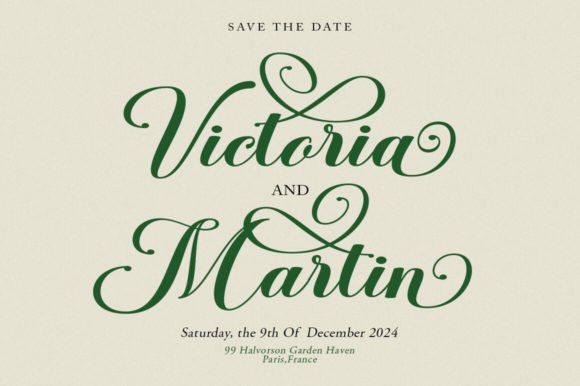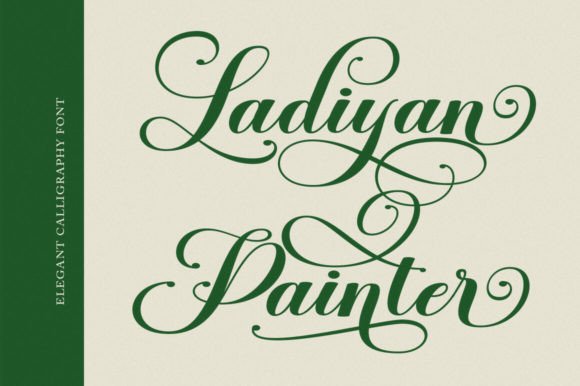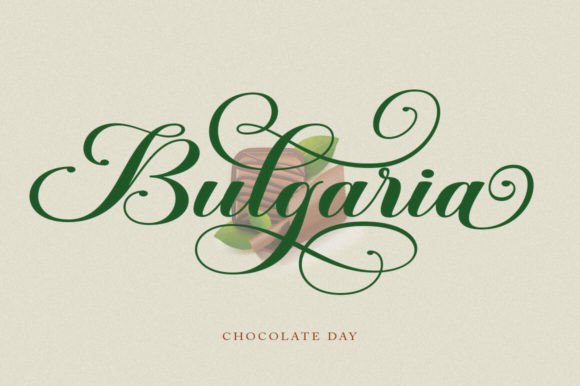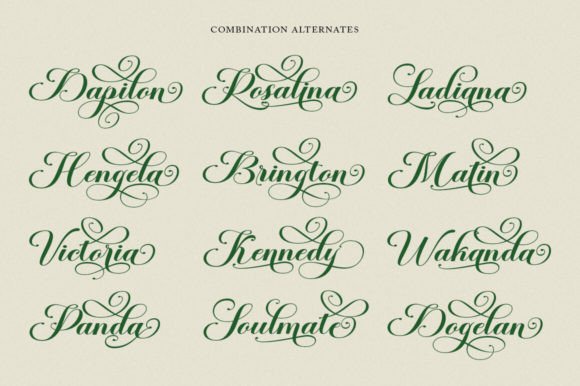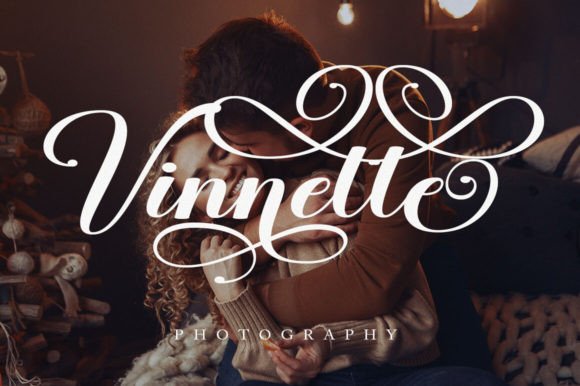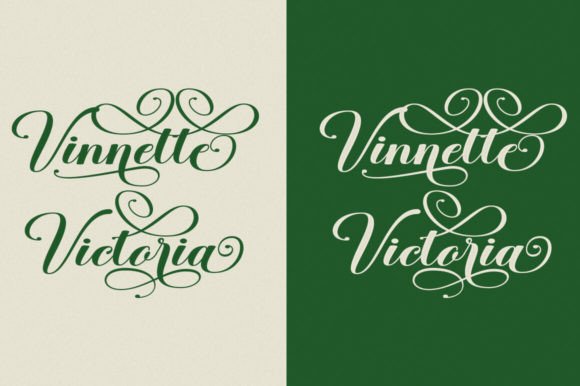
Dapilon Font: Elevate Your Designs with Modern Calligraphy
In the world of typography, a good font can make all the difference in creating stunning designs. For designers and crafters looking for a unique and elegant touch, the Dapilon Font is an excellent choice. This modern calligraphy font is crafted with precision and natural flair, making it perfect for branding, websites, and editorial designs.
What Makes Dapilon Font Stand Out?
The Dapilon Font is designed with meticulous attention to detail, offering a range of features that set it apart from other fonts. Here are some of its key characteristics:
- Natural and Precise Craftsmanship: The Dapilon Font is created with a blend of natural elegance and precision, giving it a unique and sophisticated look.
- Multilingual Support: This font includes multilingual support, making it versatile for use in various languages and regions.
- Complete Character Set: The Dapilon Font includes all character letters, ensuring that you have everything you need to create stunning designs.
- Punctuation and Binding: The font also features punctuation and binding, allowing for seamless integration into your designs.
- PUA Encoded: The Dapilon Font is PUA (Private Use Area) encoded, which means you can easily access all the amazing glyphs and ligatures without any hassle.
The Dapilon Font is incredibly versatile and can be used in a variety of design applications. Here are some of the ways you can utilize this beautiful font:
- Branding: Create stunning logos, business cards, and letterheads that reflect your brand’s personality and style.
- Websites: Enhance your website’s typography with the Dapilon Font, adding a touch of elegance and sophistication to your online presence.
- Editorial Designs: Use the Dapilon Font in editorial designs, such as magazines, newspapers, and books, to add a touch of class and refinement.
Why Choose Dapilon Font?
With so many fonts available, why choose the Dapilon Font? Here are some compelling reasons:
- Unique and Elegant: The Dapilon Font offers a unique and elegant look that will set your designs apart from the rest.
- High-Quality Design: The font is crafted with precision and attention to detail, ensuring a high-quality design that will impress.
- Easy to Use: The Dapilon Font is PUA encoded, making it easy to access and use all the glyphs and ligatures.
- Versatile: The font is suitable for a wide range of design applications, from branding to editorial designs.
Tips for Using Dapilon Font
To get the most out of the Dapilon Font, here are some tips:
- Experiment with Different Sizes: Try out different font sizes to see how the Dapilon Font looks in various contexts.
- Pair with Other Fonts: Experiment with pairing the Dapilon Font with other fonts to create a unique and harmonious design.
- Use Ligatures: Take advantage of the font’s ligatures to add a touch of elegance and sophistication to your designs.
The Dapilon Font is an excellent choice for designers and crafters looking for a unique and elegant modern calligraphy font. With its natural and precise craftsmanship, multilingual support, and PUA encoding, this font is perfect for a wide range of design applications. Whether you’re working on branding, websites, or editorial designs, the Dapilon Font is sure to elevate your designs to the next level.